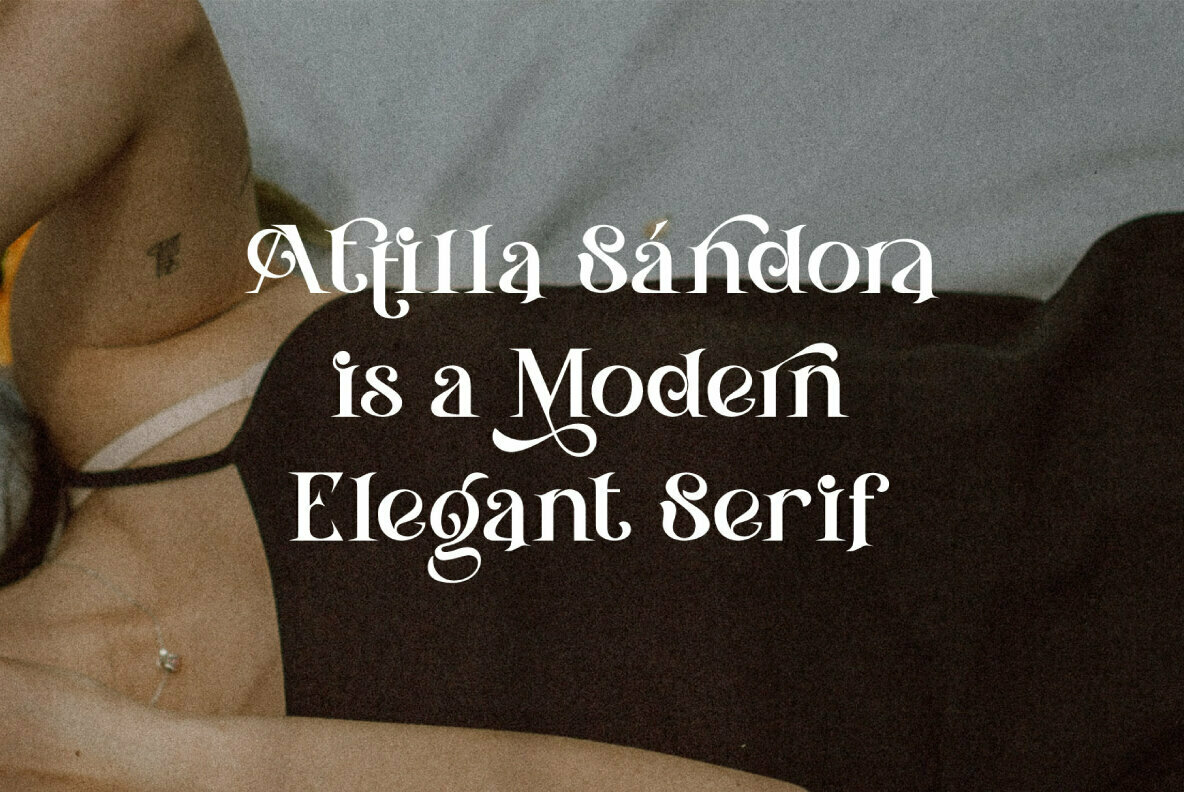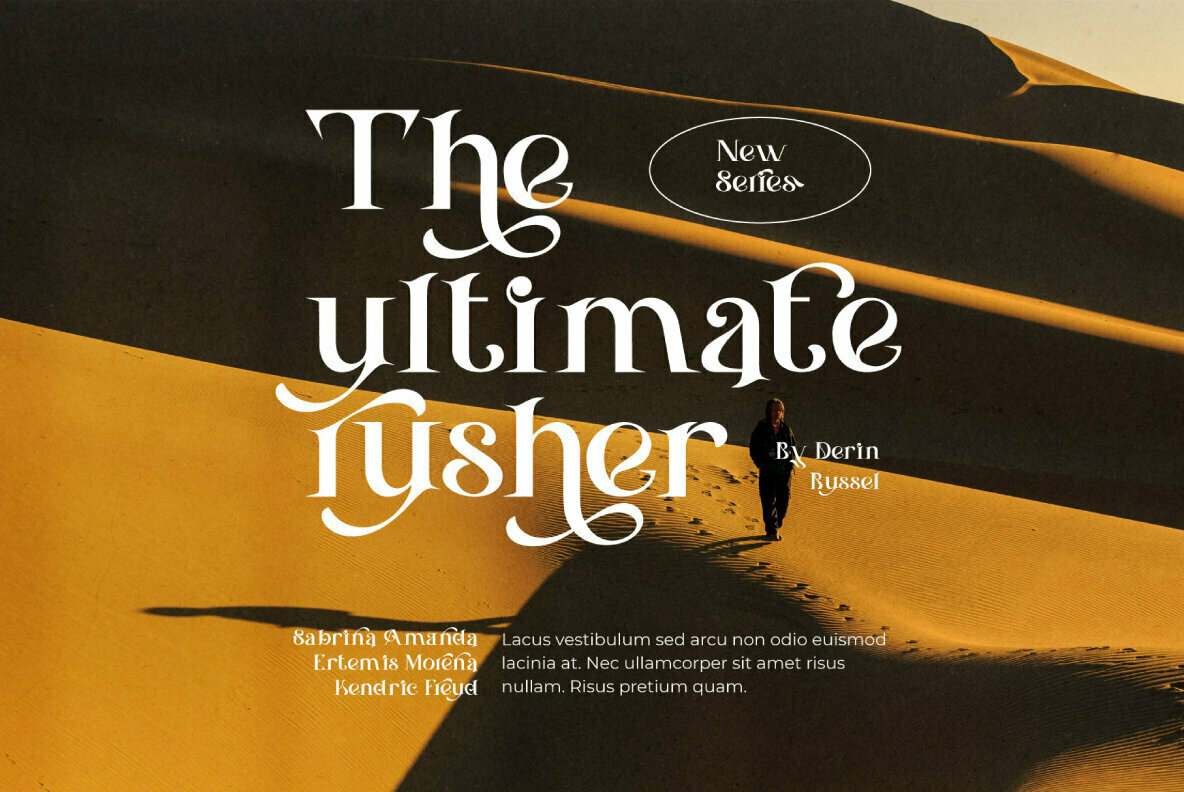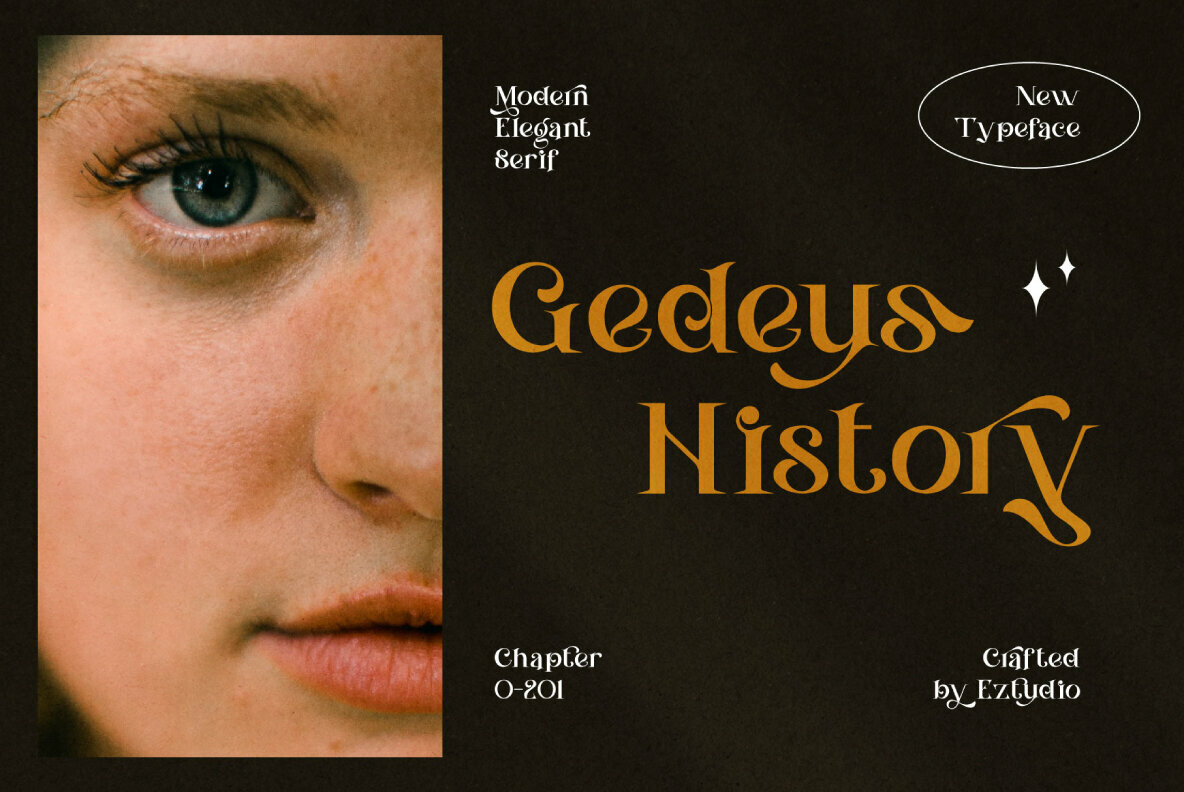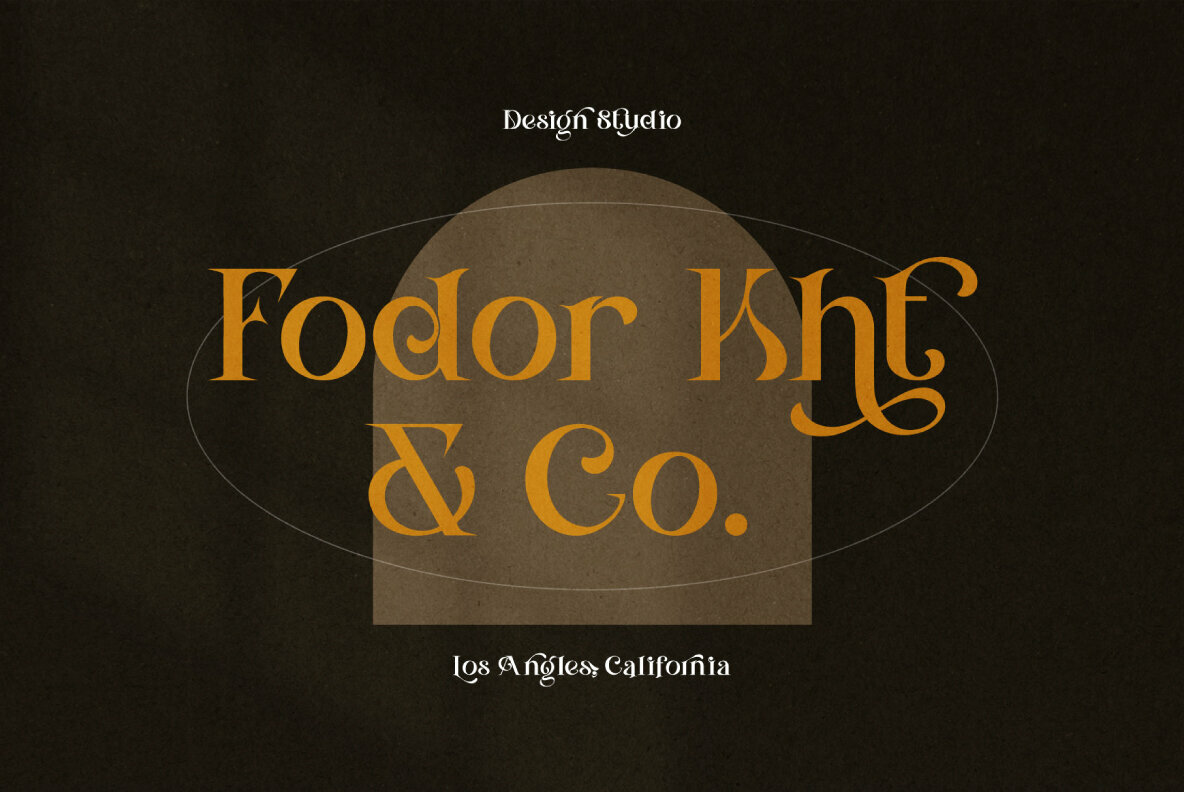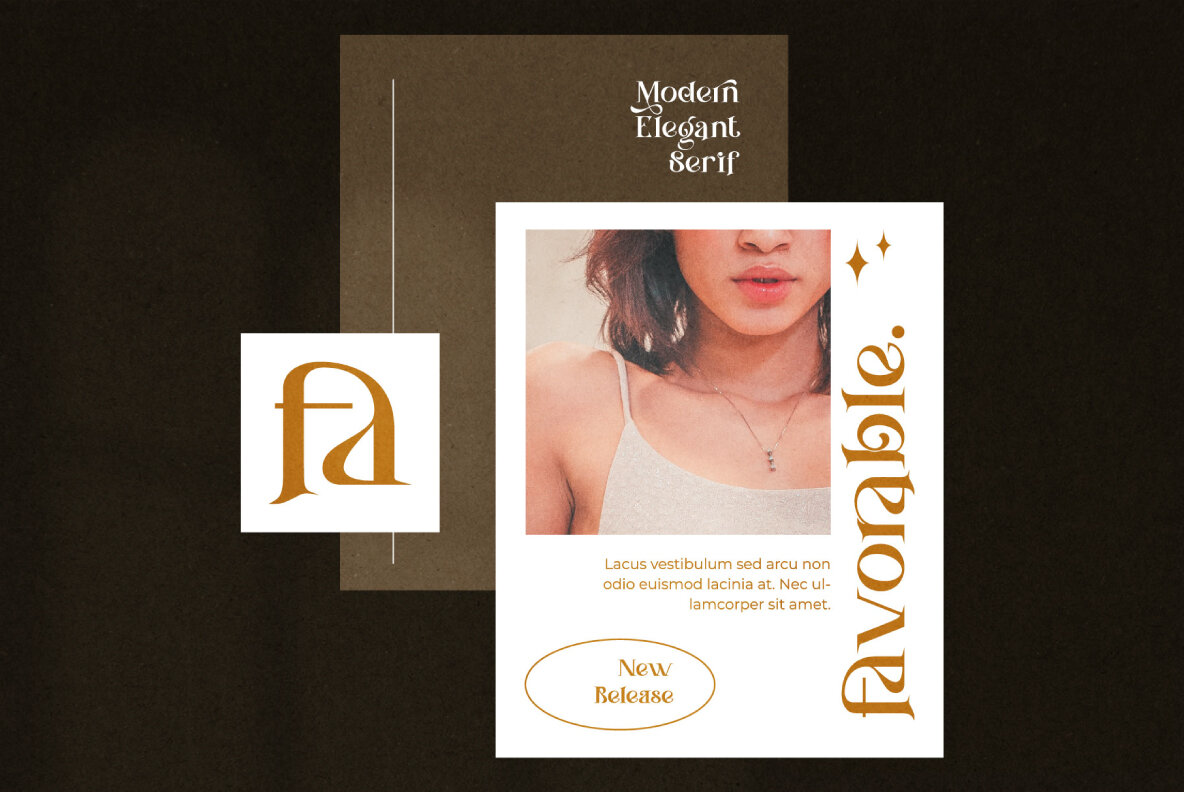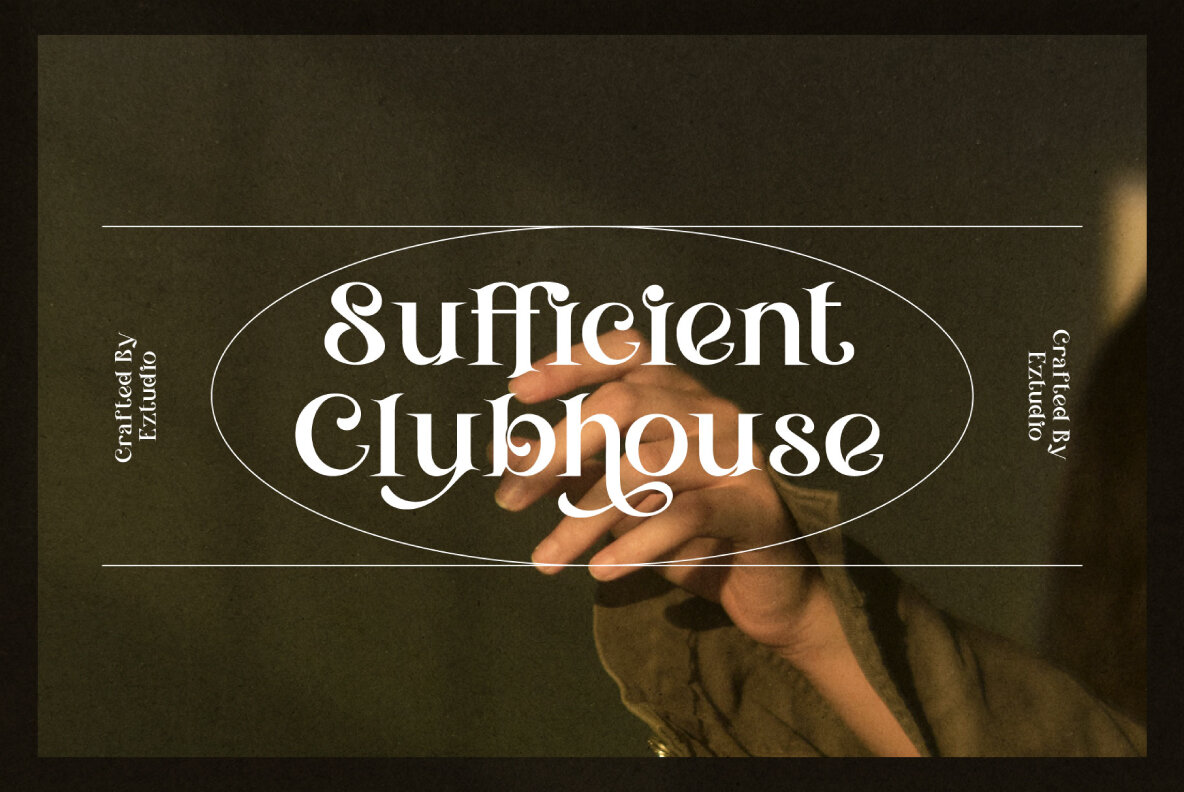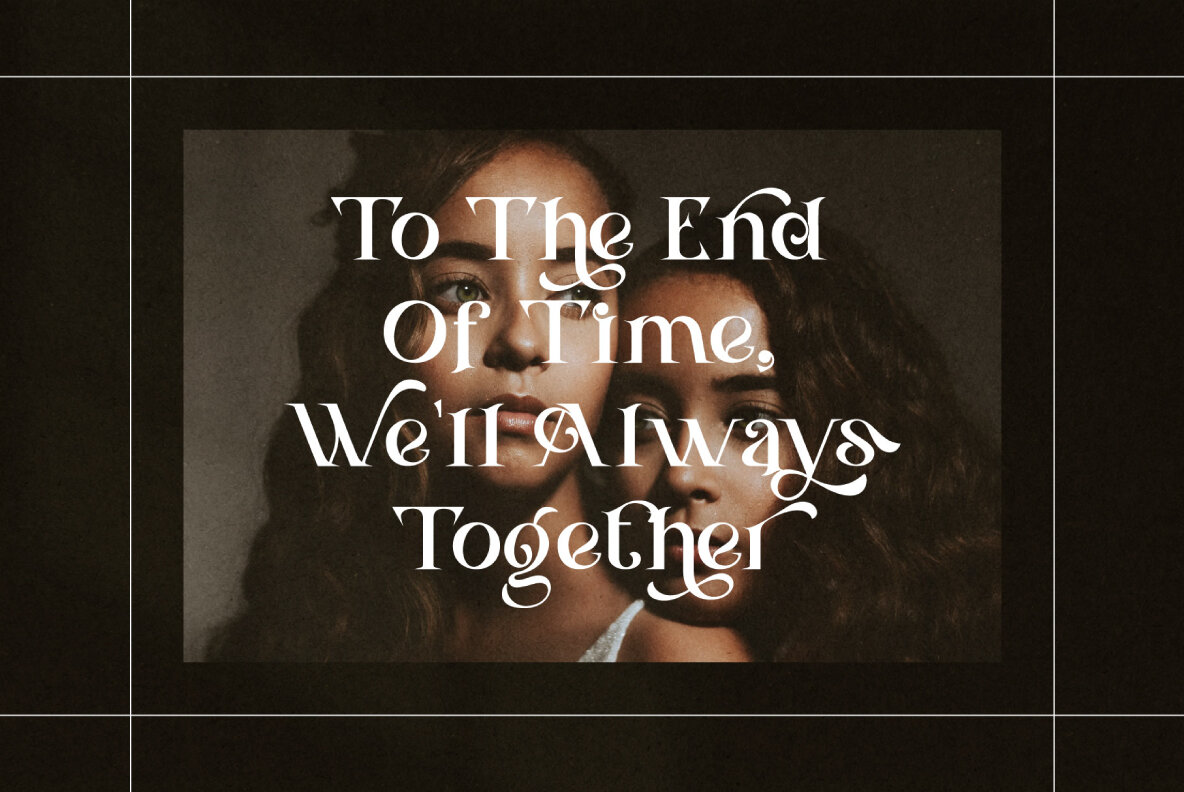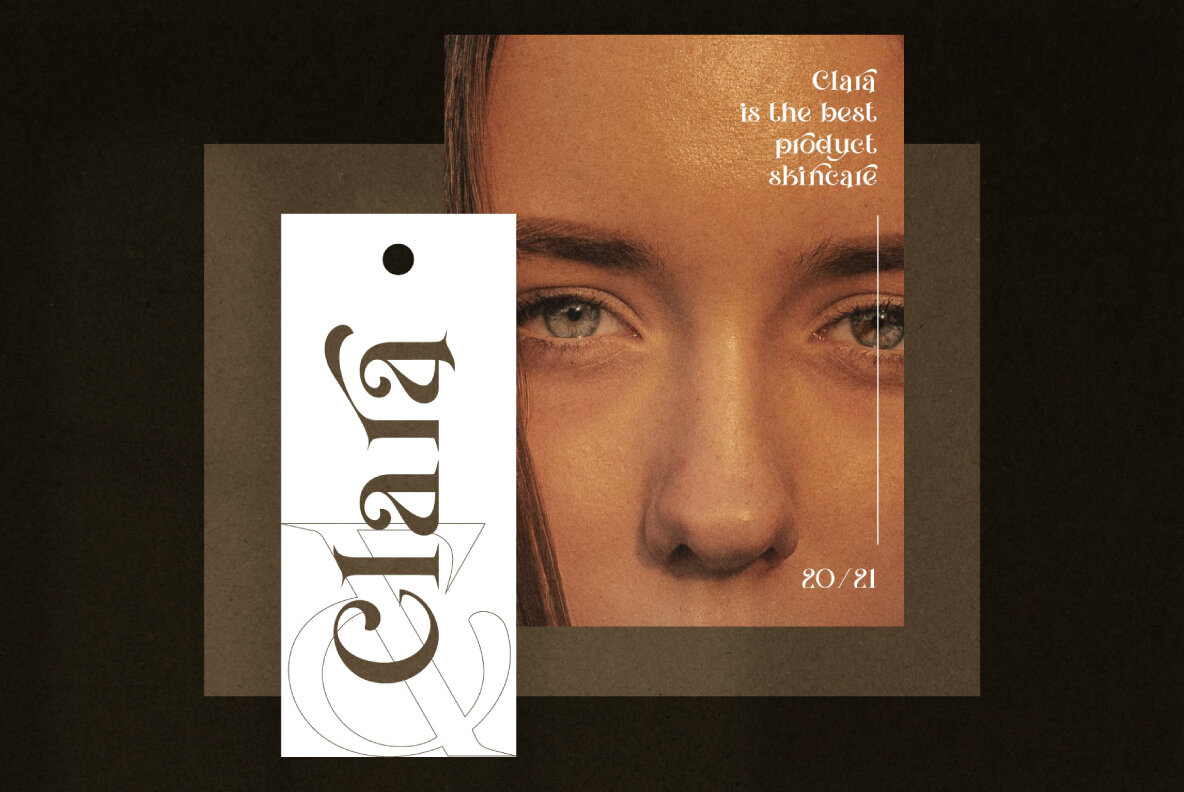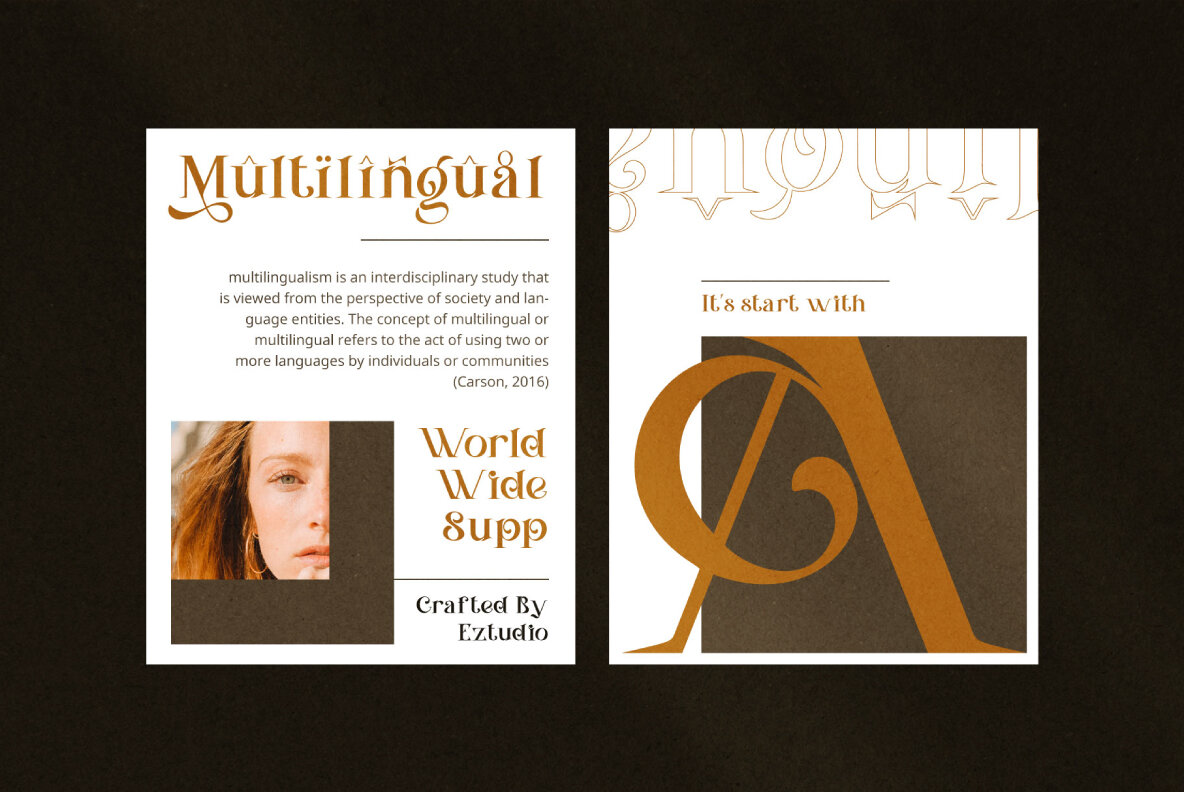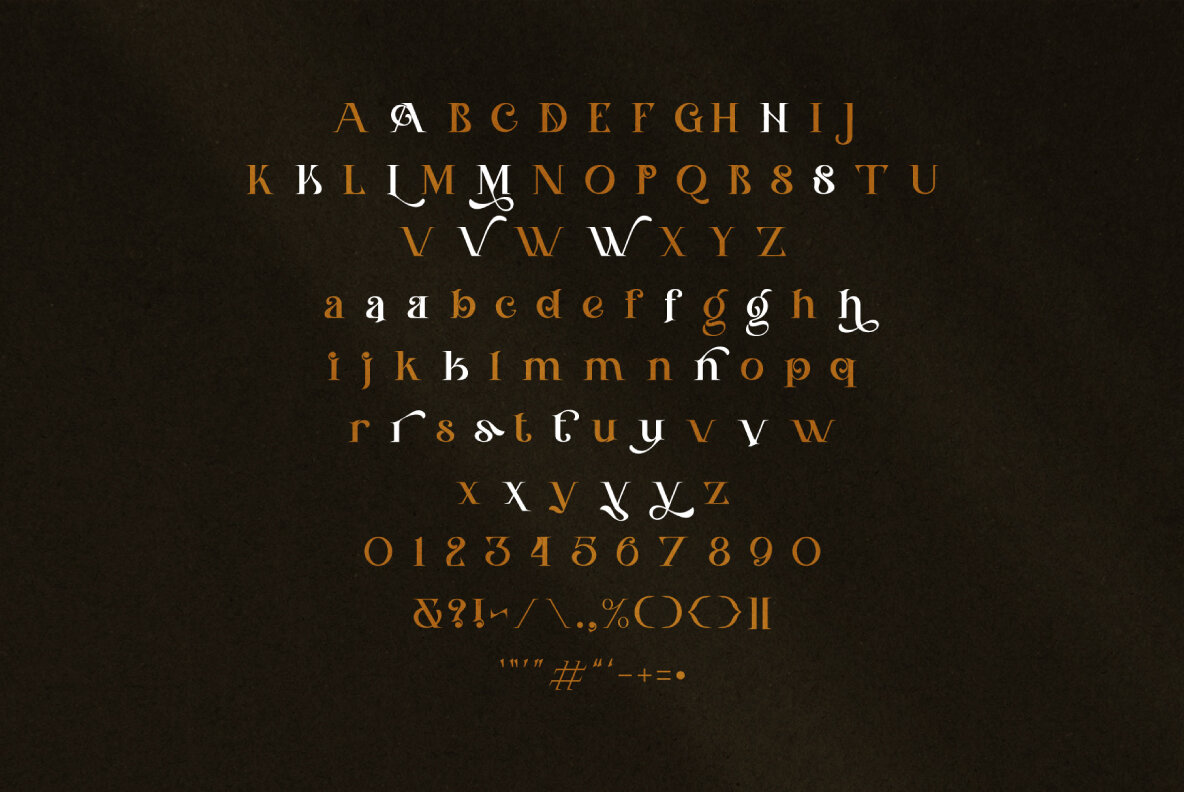
Attilla Sandora Font
Attilla Sandora
The design world often embraces serif typefaces for their blend of traditional charm and modern sophistication. Attilla Sandora exemplifies this blend, offering a quintessential serif that meets diverse design needs with grace. This font captures elegance with its modern touch, making it a suitable choice for both professional and creative projects. This sophisticated serif font stands out in any design toolkit, ready to enhance branding projects, wedding invitations, and decorative artworks.Attilla Sandora: Elegant Serif for Versatile Design